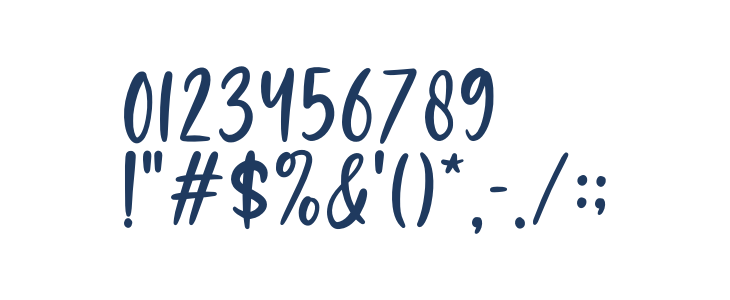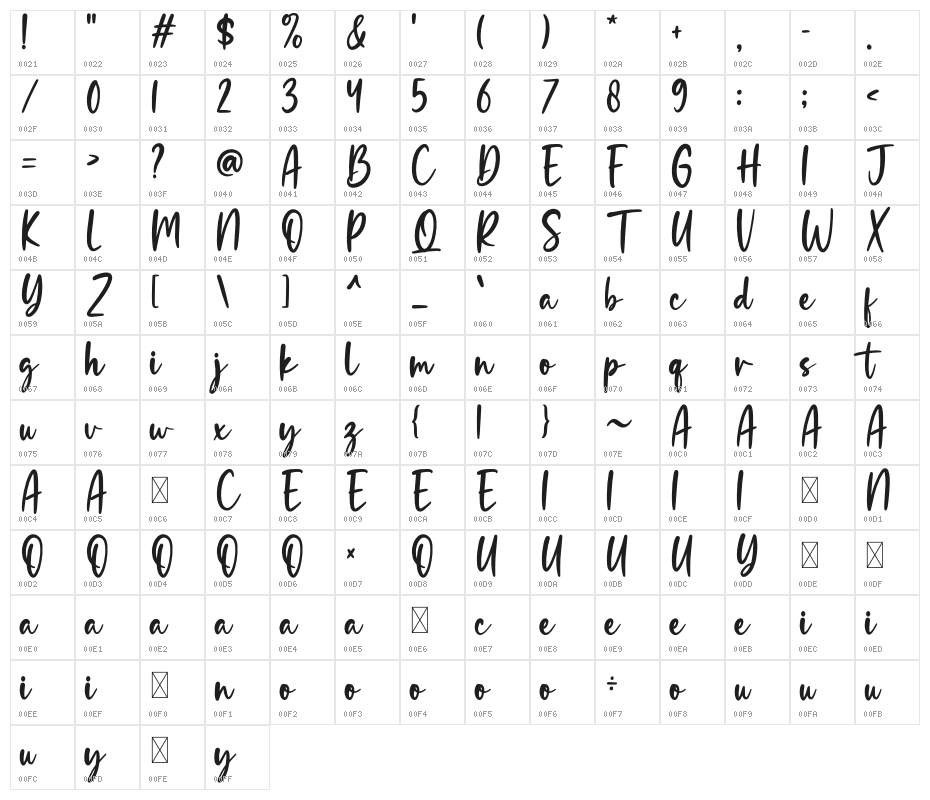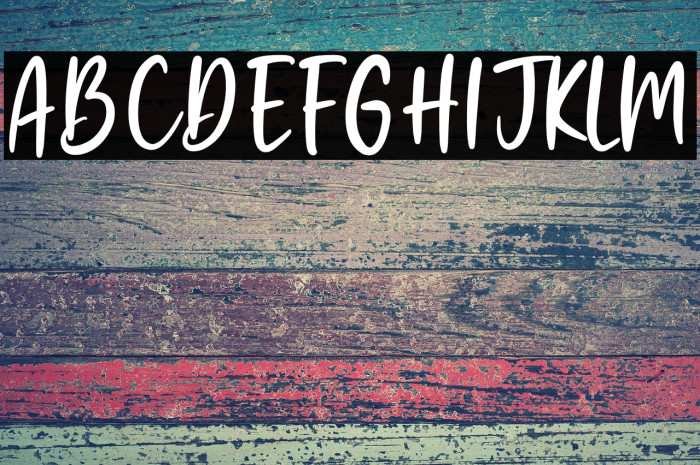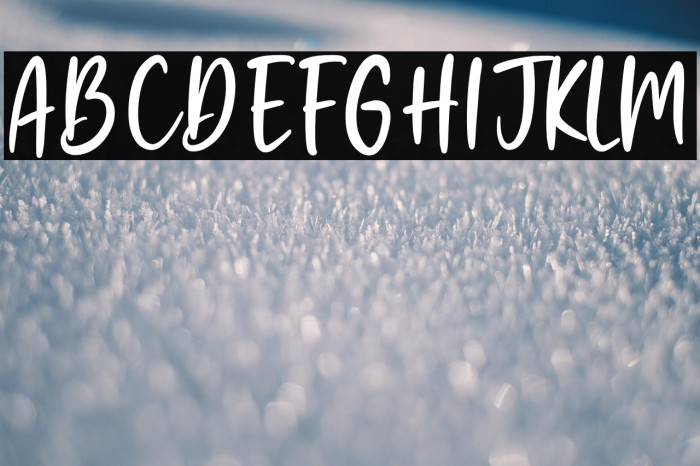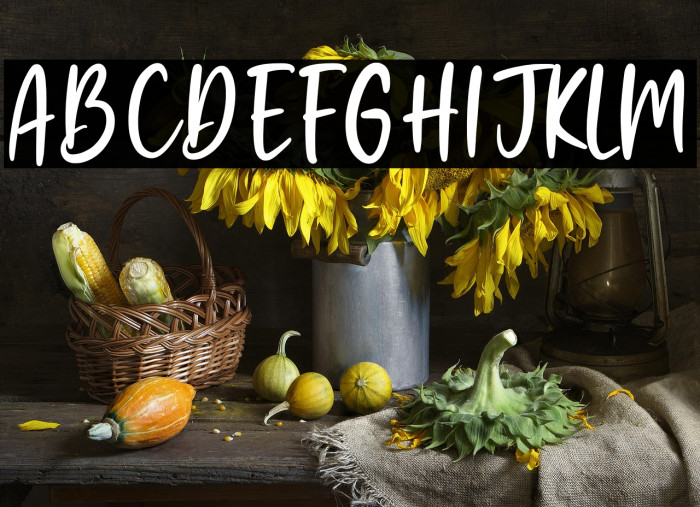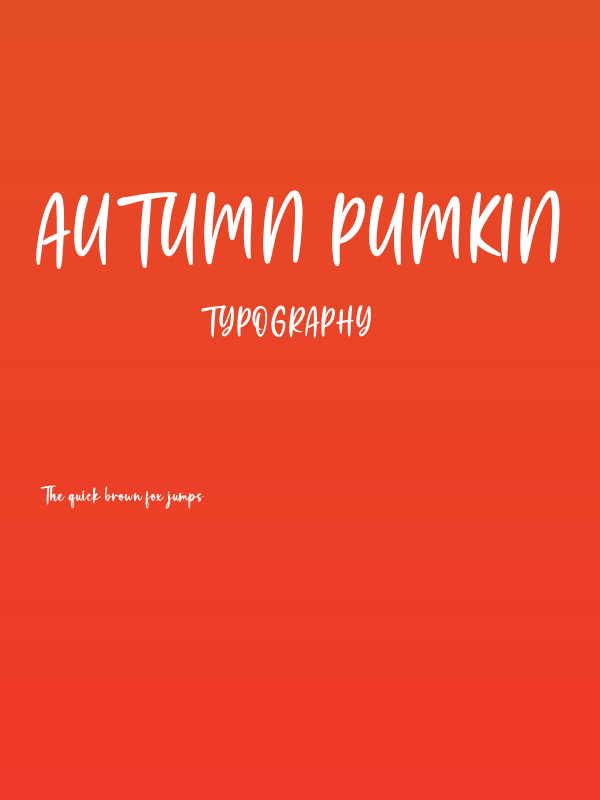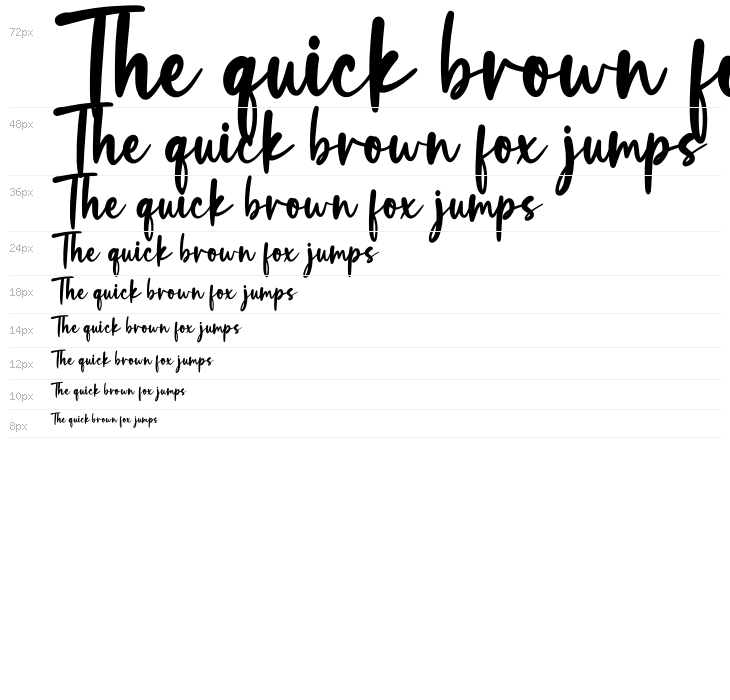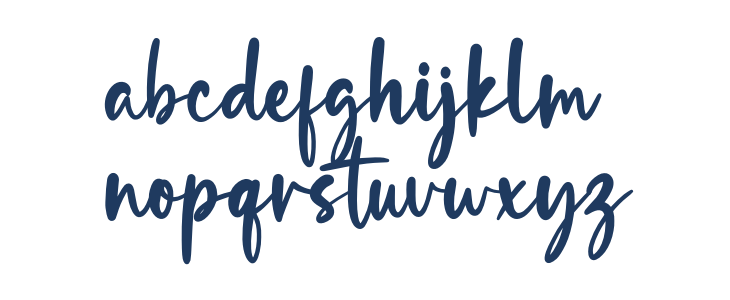
Autumn Pumkin Font
Autumn Pumkin Description
This font exudes a playful and casual handwritten style, characterized by its flowing and connected letterforms. The uppercase letters are bold and slightly slanted, giving a dynamic and energetic feel. The lowercase letters maintain a consistent flow, with some letters featuring loops and curls that add to the whimsical nature. The numerals are rounded and maintain the same playful aesthetic. Special characters are integrated seamlessly, maintaining the overall style. This font is perfect for projects that require a personal touch, such as invitations, greeting cards, or branding that aims to convey warmth and approachability.